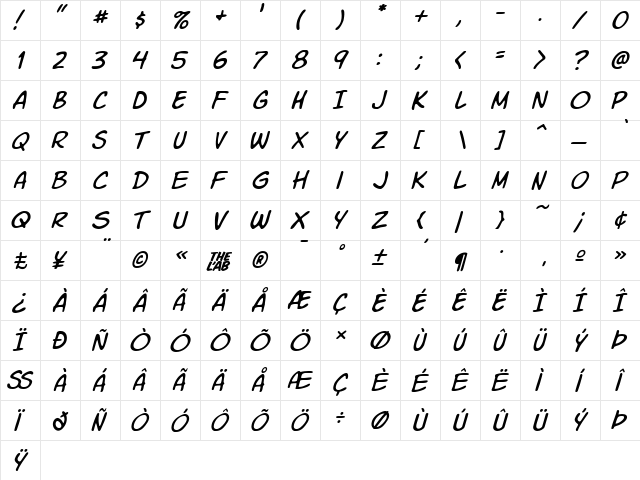
Komika Slim Italic
| Designer | WolfBainX & Apostrophe |
Design Context for Komika Slim Typeface
Komika Slim takes a measured approach to typography — its balanced proportions and neutral character make it a reliable workhorse for both digital and print work. The slanted form adds forward momentum and visual energy.
Pro Tip: Try Komika Slim for annotation and caption copy alongside an upright companion — the contrast in angle creates a dynamic but ordered typographic system.